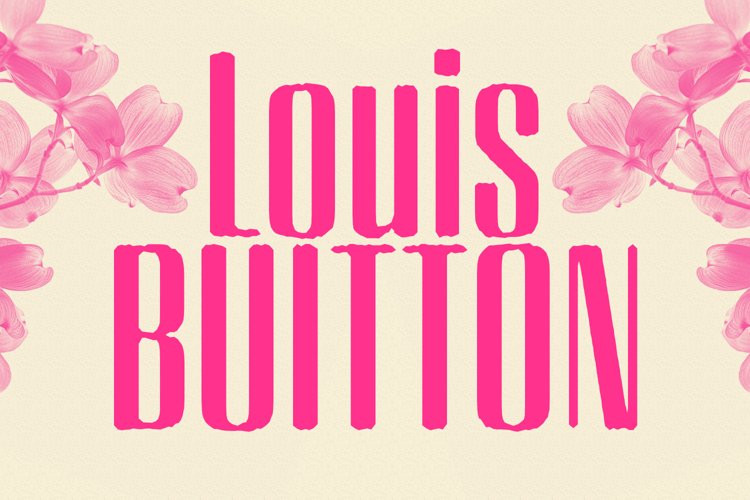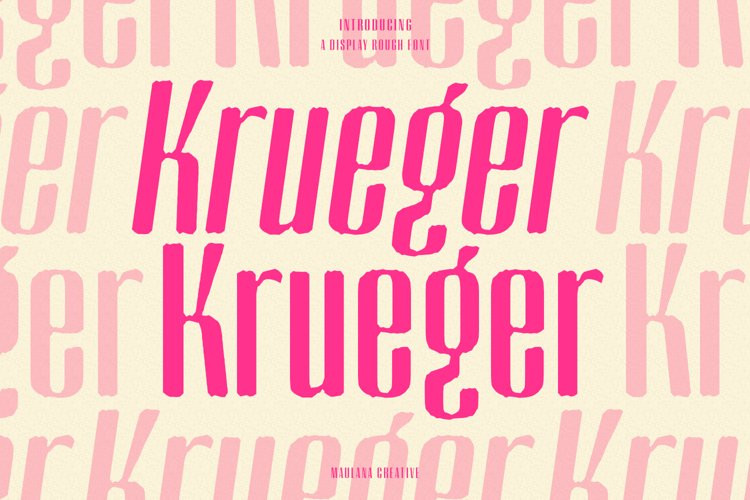
Krueger Font
Krueger FontKrueger is a modern sans serif display font. With bold contrast stroke, fun character with a bit of ligatures and alternates. To give you an extra creative work. Krueger font support multilingual more than 100+ language. This font is good for logo design, Social media, Movie Titles, Books Titles, a short text even a long text letter and good for your secondary text font with sans or serif. Make a stunning work with Krueger font.